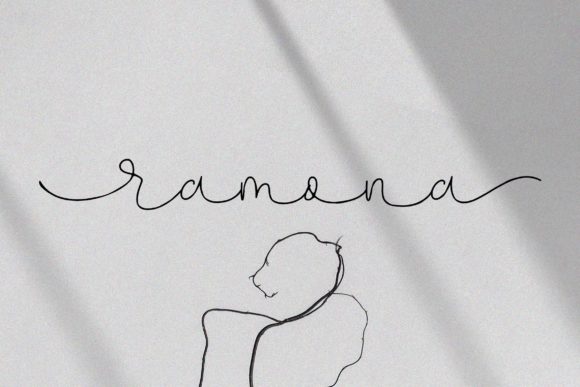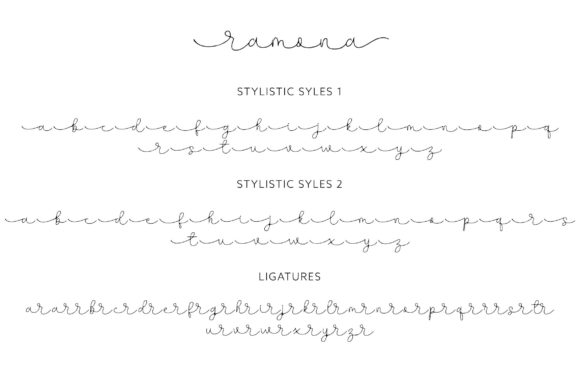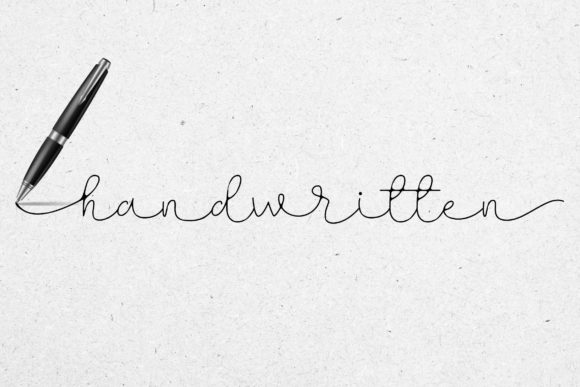
About Ramona Signature Font
Ramona Signature is a thin lettered and graceful script font. Fall for its ravishing style and use it to create lovely designs. This font is PUA encoded which means you can access all of the amazing glyphs and ligatures with ease!